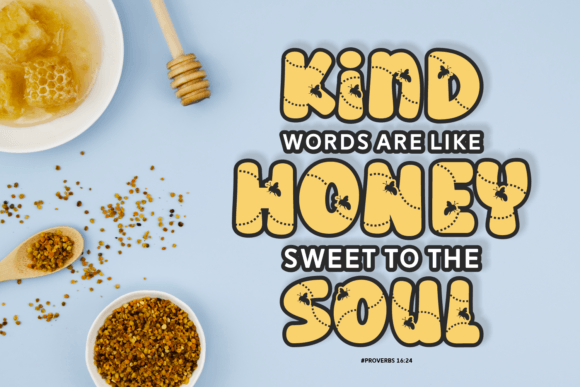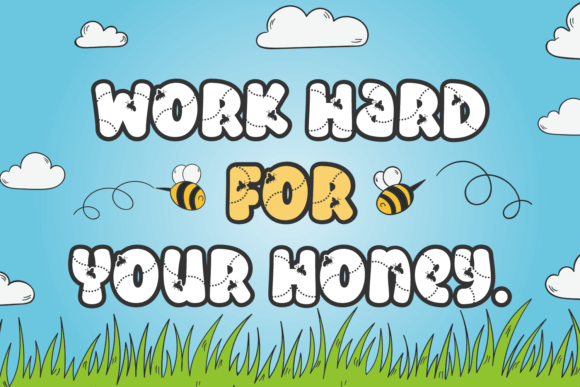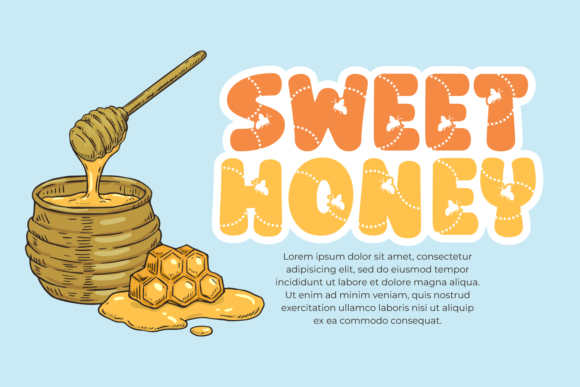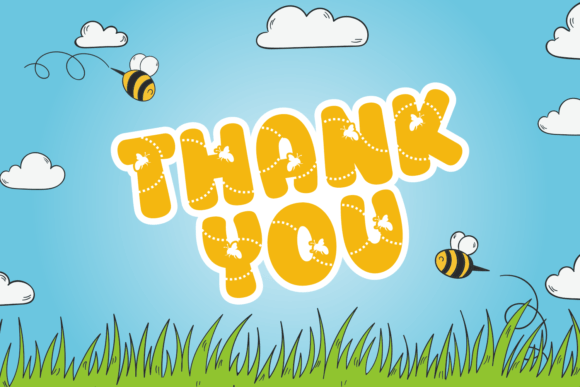
Bruch Bees Font: A Delightful Decorative Typeface for Your Creative Projects
Are you looking for a font that adds a touch of sweetness and whimsy to your designs? Look no further than the Brunch Bees font, a charming decorative typeface that features a delightful bee pattern incorporated into its design. In this article, we’ll take a closer look at the Brunch Bees font, its characteristics, and how you can use it to elevate your creative projects.
What is Brunch Bees Font?
Brunch Bees is a delightful decorative typeface that boasts a charming bee pattern throughout its design. This font is characterized by its whimsical letterforms and playful visual style, making it perfect for projects that require a touch of sweetness and whimsy. The standout feature of the Brunch Bees font is its bee pattern, which adorns the letterforms throughout. Each letter is embellished with tiny bees buzzing around, adding a whimsical and lighthearted touch to the font’s design.
Key Features of Brunch Bees Font
- Whimsical letterforms: The Brunch Bees font features playful and whimsical letterforms that are sure to add a touch of personality to your designs.
- Bee pattern: The font’s bee pattern is its standout feature, with tiny bees buzzing around each letterform.
- Versatile: Despite its decorative nature, the Brunch Bees font is versatile and adaptable to various design contexts.
- Perfect for creative projects: This font is ideal for designers and crafters looking to add a touch of sweetness and whimsy to their projects.
How to Use Brunch Bees Font
The Brunch Bees font is perfect for a variety of design projects, including:
- Headlines: Use the Brunch Bees font to create eye-catching headlines that add a touch of whimsy to your designs.
- Logos: The font’s bee pattern makes it perfect for logos and branding materials for businesses that want to convey a sense of playfulness and charm.
- Packaging: Add a touch of sweetness to your packaging designs with the Brunch Bees font.
- Invitations: Use the font to create whimsical and charming invitations for special occasions.
Benefits of Using Brunch Bees Font
Using the Brunch Bees font in your designs offers several benefits, including:
- Unique and eye-catching: The font’s bee pattern and whimsical letterforms make it a unique and eye-catching addition to any design.
- Playful and charming: The Brunch Bees font adds a playful and charming touch to designs, making it perfect for projects that require a lighthearted approach.
- Versatile: The font’s versatility makes it suitable for a wide range of design contexts.
Tips for Getting the Most Out of Brunch Bees Font
To get the most out of the Brunch Bees font, consider the following tips:
- Use it sparingly: While the Brunch Bees font is perfect for adding a touch of whimsy to your designs, it’s best to use it sparingly to avoid overwhelming the viewer.
- Pair it with a simple font: Pair the Brunch Bees font with a simple font to create visual interest and balance in your designs.
- Experiment with colors: The Brunch Bees font looks great in a variety of colors, so don’t be afraid to experiment and find the perfect hue for your design.
The Brunch Bees font is a delightful decorative typeface that adds a touch of sweetness and whimsy to any design. Its whimsical letterforms, bee pattern, and versatility make it perfect for a wide range of creative projects. Whether you’re a designer or crafter, the Brunch Bees font is sure to inspire and elevate your designs. So why not give it a try and see how it can add a touch of charm and playfulness to your next project?